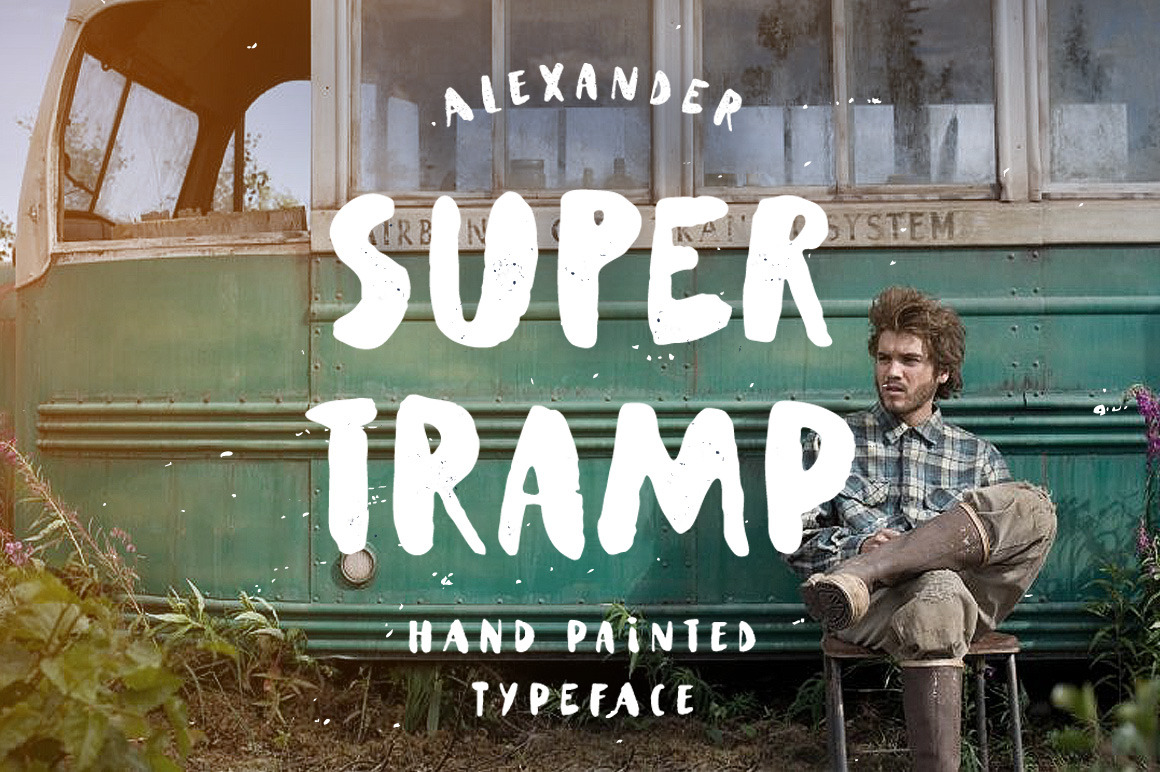
Supertramp Typeface
The story. This hand painted typeface was created under inspiration of story about Christopher McCandless (known as Alexander Supertramp), which went to an uninhabited part of Alaska with little food and equipment, hoping to live for some time in solitude.
Features. Font drawn with a brush, and random irregularities in the letters is basic principle of creation. It gives feeling of freedom and ease. Supertramp typeface has a clean and textured versions (uppercase alphabet and numbers). In turn, each version has two variants of letters (it changing with shift button), that allows to make in the "summer" word (for example) two different letter "M".
Purpose. Perfect for using in t-shirt lettering design, and vintage badges.